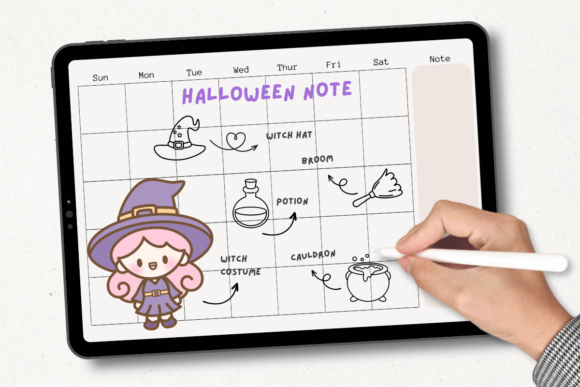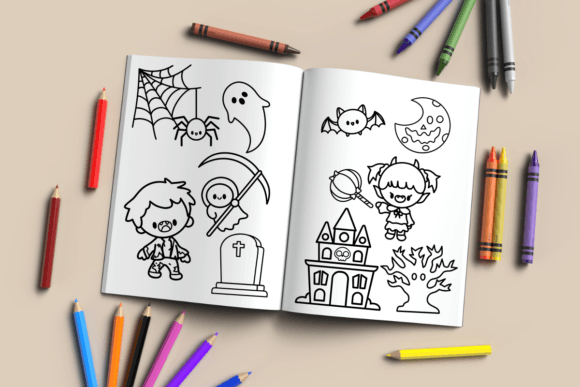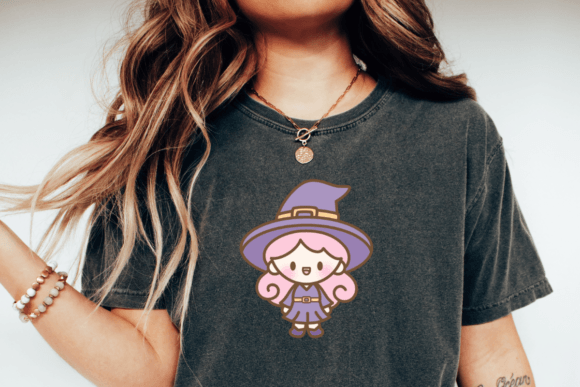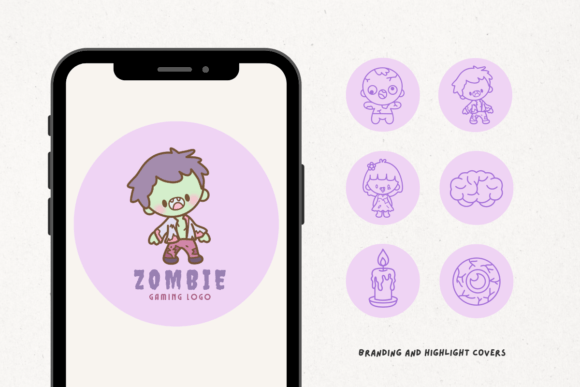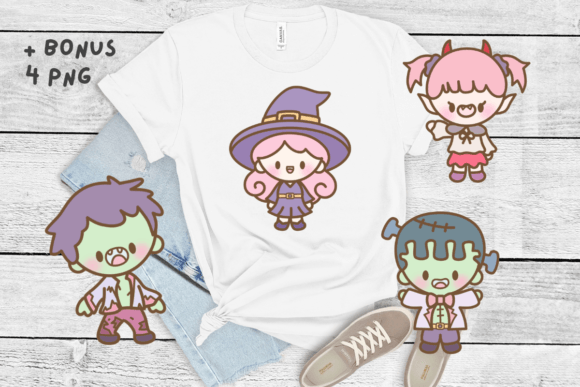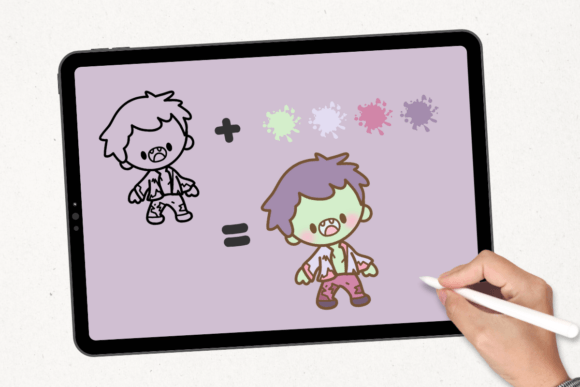
Unleash the Spooky Spirit with Halloween Doodle Font
Halloween is just around the corner, and what better way to get into the spirit than with a font that’s as spooky as it is fun? Introducing the Halloween Doodle Font, a playful dingbat font designed especially for Halloween enthusiasts. Packed with a delightful collection of Halloween-themed doodles, it’s your one-stop font for all things spooktacular!
What is Halloween Doodle Font?
Halloween Doodle Font is a unique and creative font that features a wide range of Halloween-themed doodles, including ghosts, bats, pumpkins, and more. This font is perfect for designers, crafters, and anyone looking to add a touch of eerie charm to their Halloween creations. Whether you’re crafting party invitations, decorating, or spicing up your social media, this font is sure to make your designs stand out.
Key Features of Halloween Doodle Font
- Playful Dingbat Font: Halloween Doodle Font is a playful dingbat font that features a wide range of Halloween-themed doodles.
- Delightful Collection: The font includes a delightful collection of Halloween-themed doodles, including ghosts, bats, pumpkins, and more.
- Eerie Charm: The font adds a perfect touch of eerie charm to your Halloween creations, making them stand out from the crowd.
- Versatile: The font can be used for a wide range of projects, including party invitations, decorations, social media graphics, and more.
Uses of Halloween Doodle Font
Halloween Doodle Font is a versatile font that can be used for a wide range of projects. Here are some ideas to get you started:
- Party Invitations: Use the font to create spooky and fun party invitations that will set the tone for your Halloween party.
- Decorations: Use the font to create Halloween-themed decorations, such as garlands, banners, and signs.
- Social Media Graphics: Use the font to create spooky and fun social media graphics that will help you stand out from the crowd.
- Crafting: Use the font to create Halloween-themed crafts, such as cards, gift tags, and scrapbook pages.
Benefits of Using Halloween Doodle Font
There are many benefits to using Halloween Doodle Font for your Halloween projects. Here are a few:
- Save Time: The font saves you time and effort by providing a wide range of pre-made Halloween-themed doodles.
- Versatile: The font can be used for a wide range of projects, making it a great value for designers and crafters.
- Unique Designs: The font provides unique and creative designs that will help you stand out from the crowd.
Tips for Using Halloween Doodle Font
Here are a few tips for using Halloween Doodle Font:
- Experiment with Different Sizes: Experiment with different font sizes to create a variety of effects.
- Combine with Other Fonts: Combine the font with other fonts to create a unique and creative look.
- Use in Combination with Images: Use the font in combination with images to create a spooky and fun design.
- Have Fun: Most importantly, have fun and be creative!